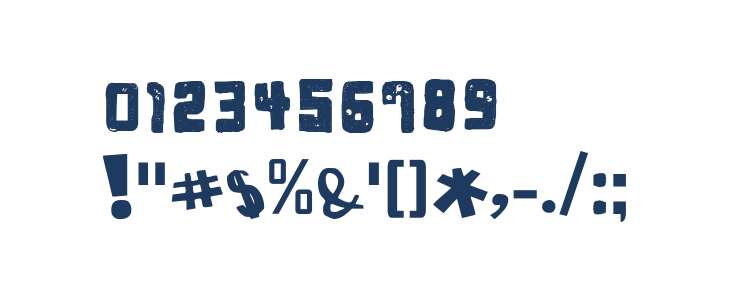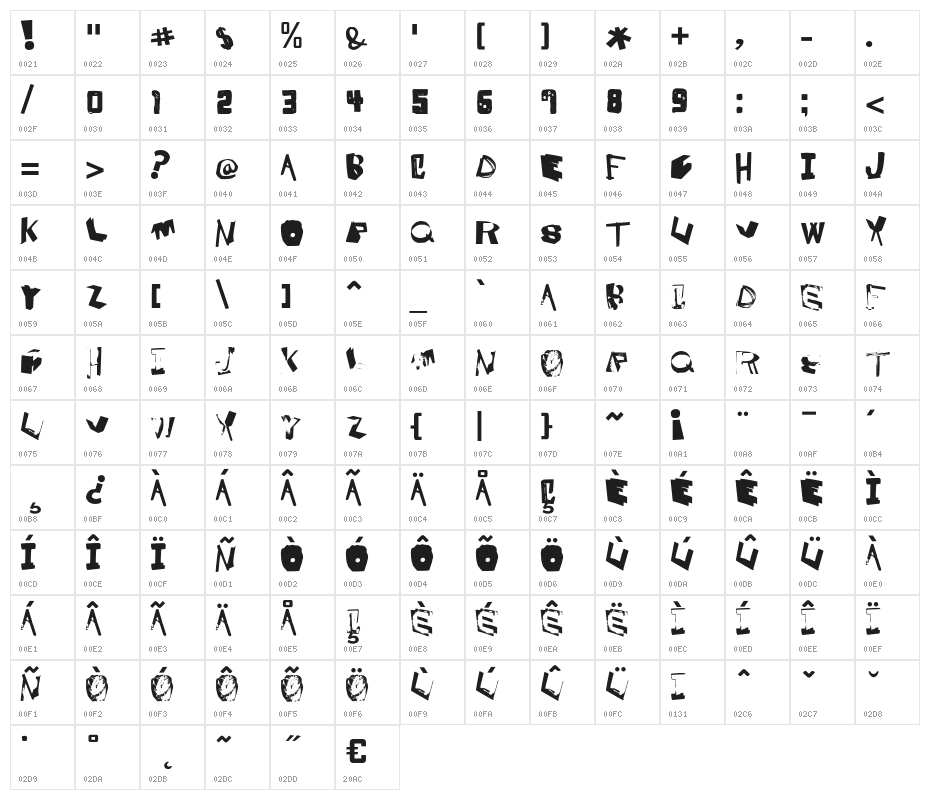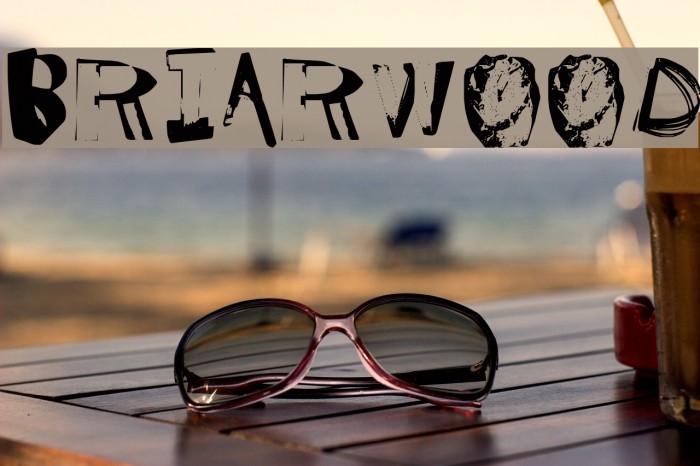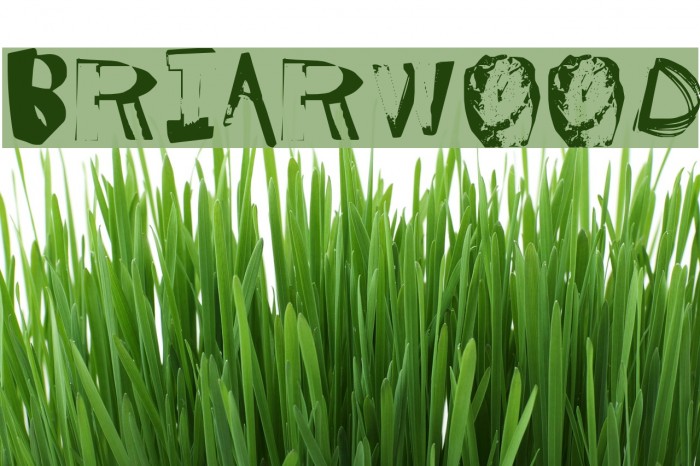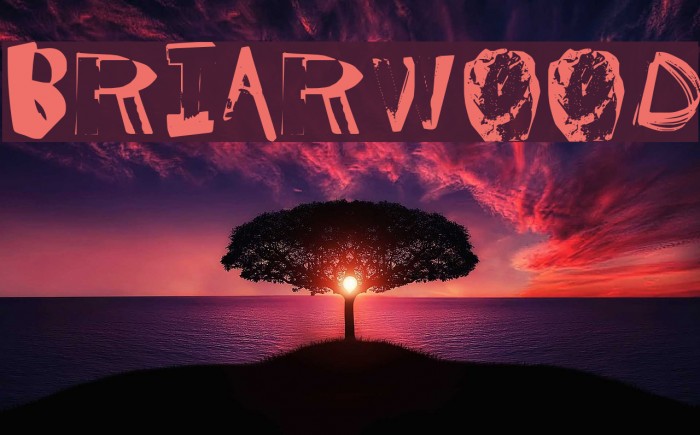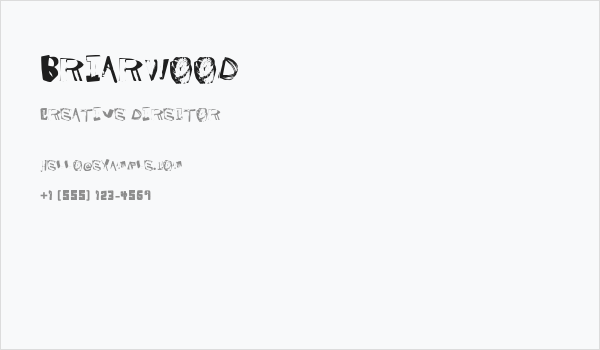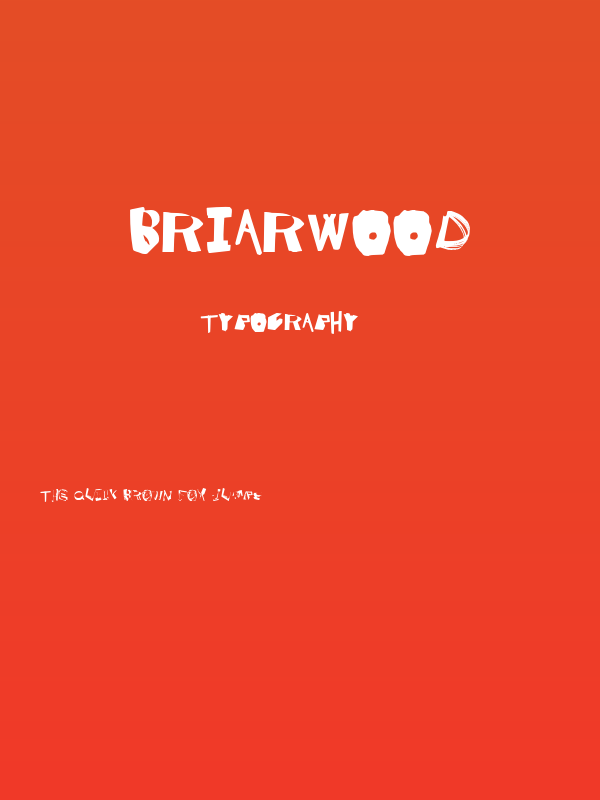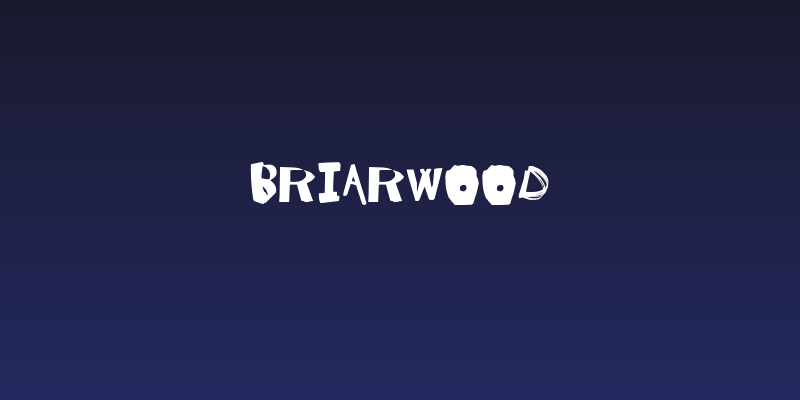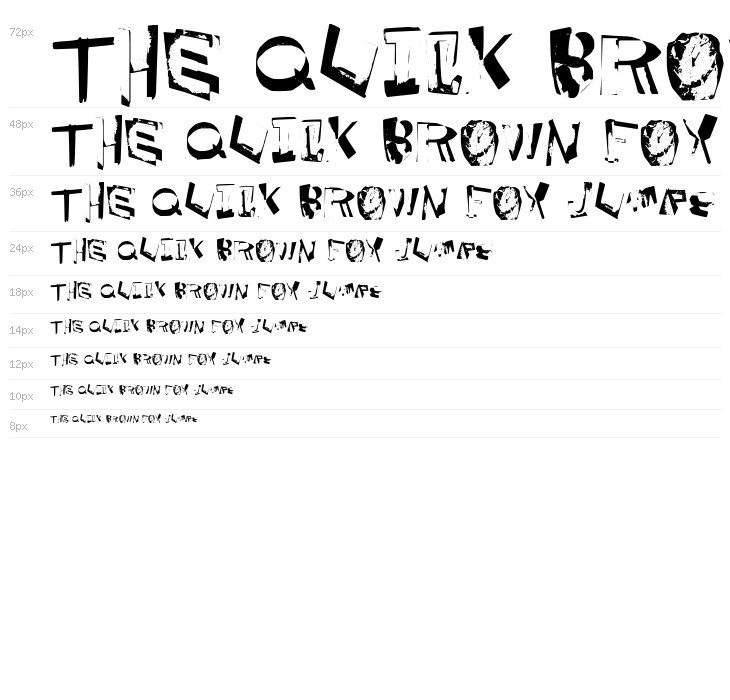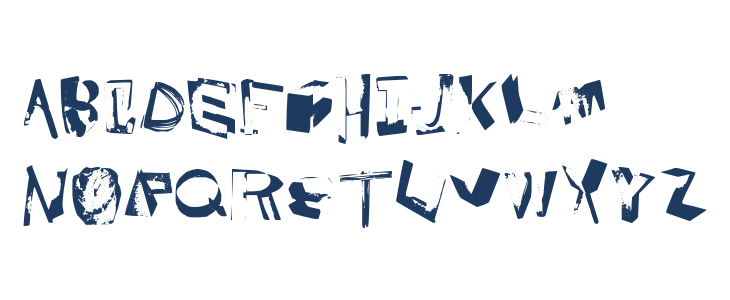
Briarwood Font
Briarwood Description
This font features a bold and distressed style, with each character appearing as if it has been cut from paper or crafted from rough materials. The uneven edges and varying thicknesses give it a rugged, handmade look. The uppercase and lowercase letters maintain a consistent theme of irregularity, adding a dynamic and edgy feel. Numbers and special characters follow the same aesthetic, making the font suitable for projects that require a gritty or urban vibe. Its unique appearance makes it stand out, perfect for creative and unconventional designs.
| Proposed Projects | Ideal for album covers, posters, street art designs, and edgy branding projects. |